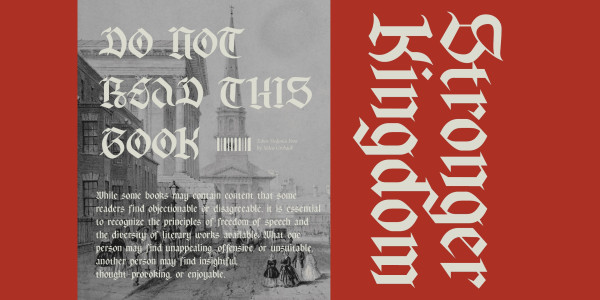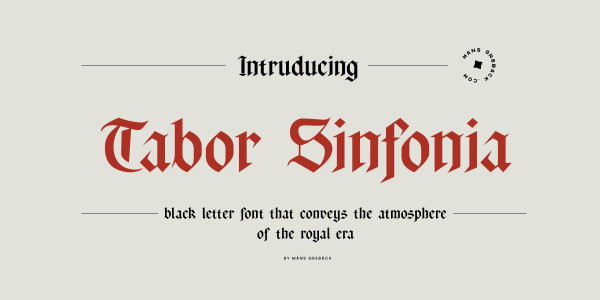
Tabor Sinfonia Font
Tabor Sinfonia Font is a blackletter typeface that marries the historic beauty of Gothic script with the rhythm and harmony of music.